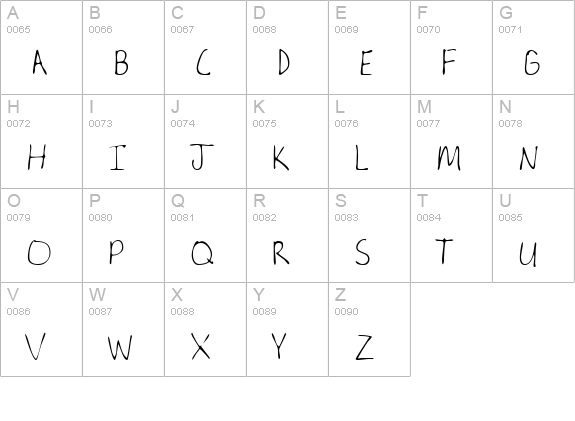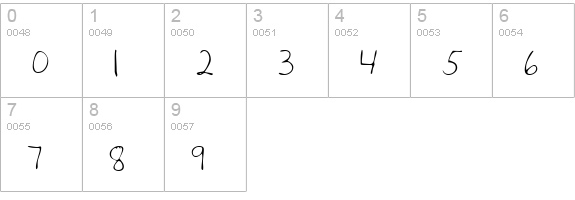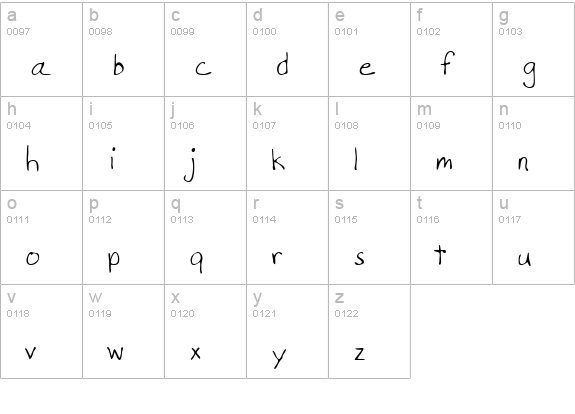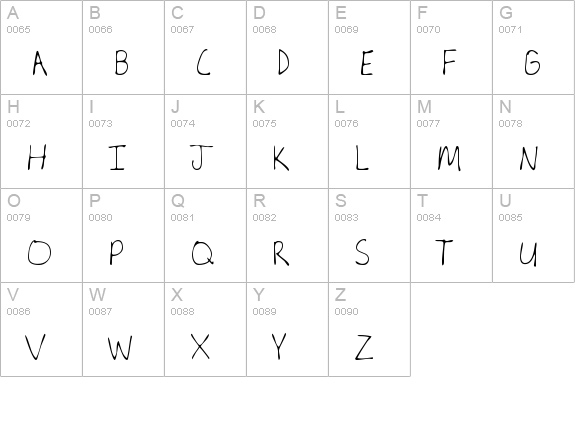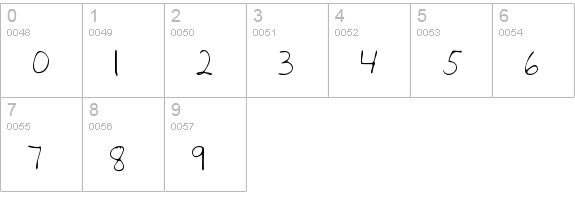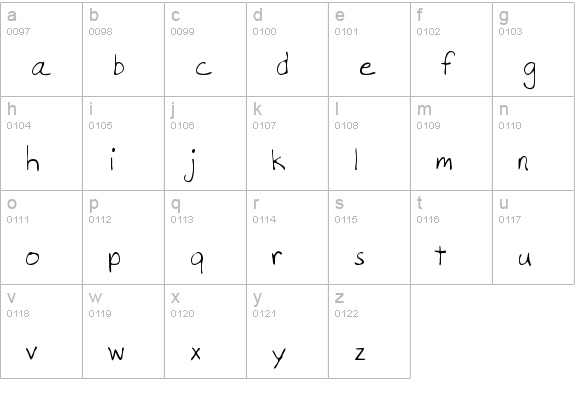
NewellsHand Regular Font Details
NewellsHand Regular is the standard, neutral variant in the NewellsHand typeface family \xE2\x80\x94 well suited to general body text, paragraphs, and standard typographic work.
NewellsHand Regular is a charming and versatile font that adds a touch of elegance to any project. With its handwritten style and flowing lines, this font is perfect for a wide range of design applications, from invitations to branding to social media graphics. The best part? NewellsHand Regular is available for free download at FontsMarket.com. This means you can easily access this beautiful font and use it in your personal and commercial projects without any hassle. Whether you're a designer looking to add a unique touch to your work or a business owner in need of a stylish font for your marketing materials, NewellsHand Regular has got you covered. Don't miss out on the opportunity to enhance your designs with this lovely font. Download NewellsHand Regular today and unleash your creativity!